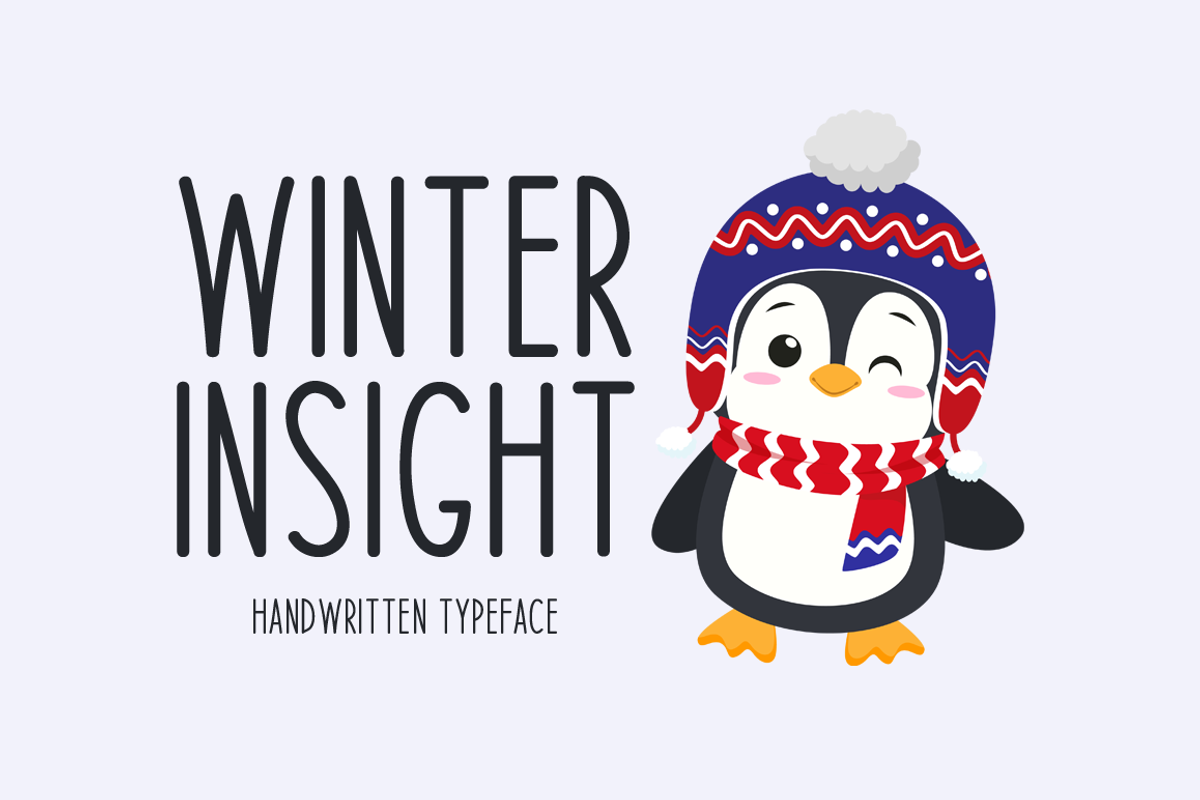
Winter Insight Typeface Free Download
The Winter Insight Typeface Free Download is a clean and elegant font that brings a fresh, modern look to any design. Whether you're working on branding, packaging, or web design, this typeface offers versatility and sophistication. Please note, for commercial use, a license must be purchased. You can download it for free for testing purposes.
With its sleek lines and professional appeal, the Winter Insight Typeface Free Download is perfect for a wide range of creative projects. Its contemporary style ensures it stands out while maintaining readability, making it an excellent choice for both print and digital designs.